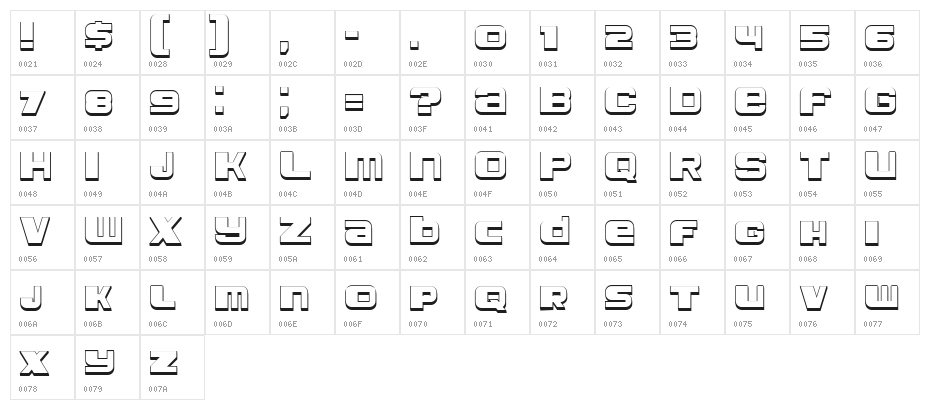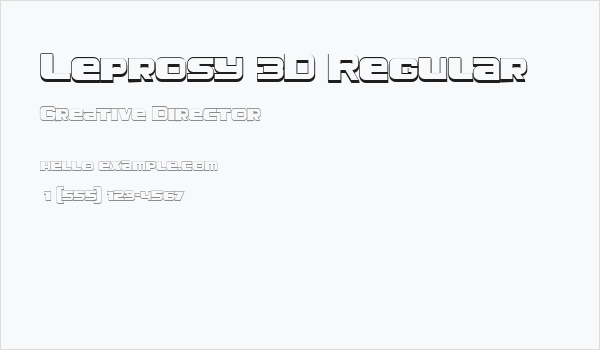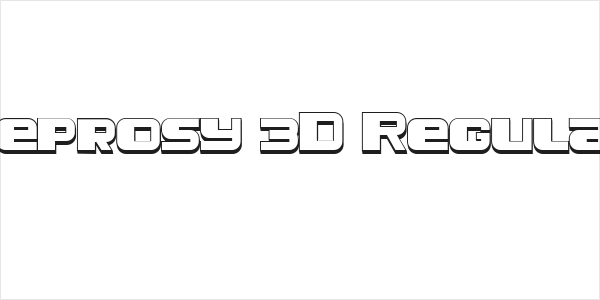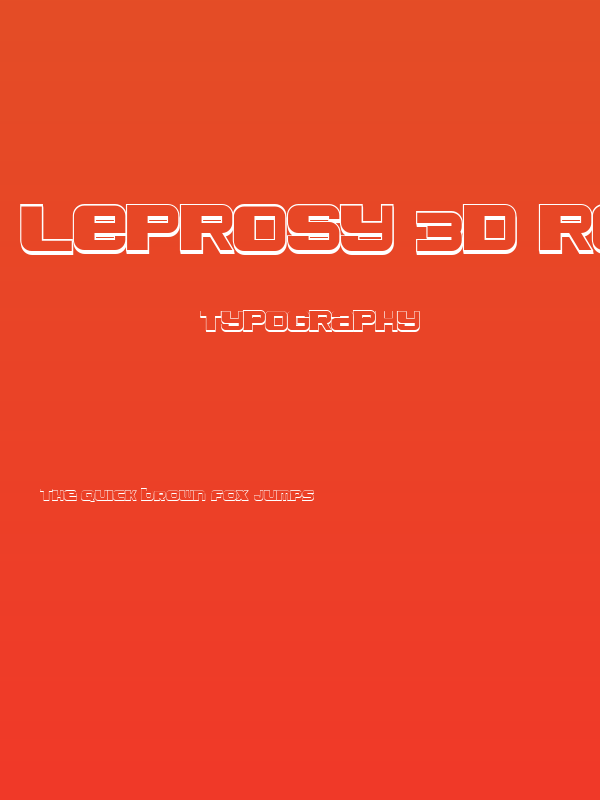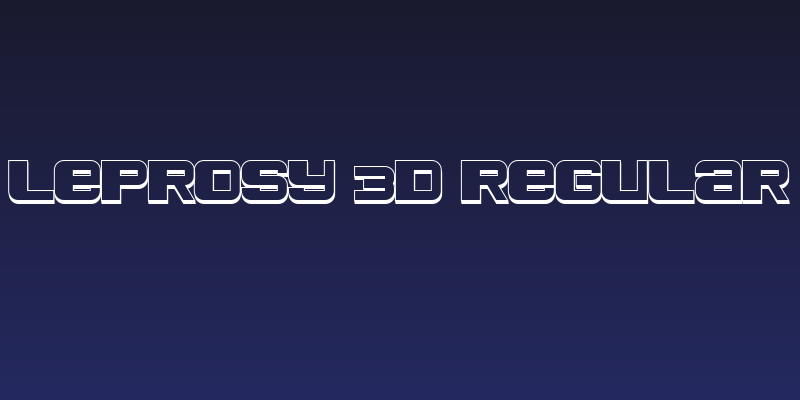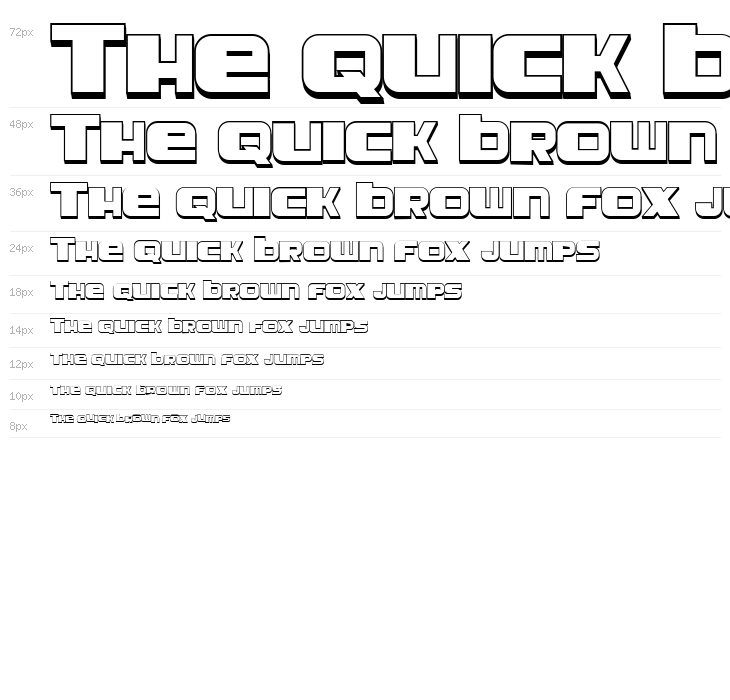
Leprosy 3D Regular Font
Leprosy 3D Regular Description
This font features a bold, three-dimensional appearance with a strong, geometric structure. Each character is outlined with a thick border, giving it a distinct, blocky look that stands out. The letters are uniformly wide, contributing to a cohesive and balanced aesthetic. The uppercase and lowercase letters maintain a consistent style, with rounded edges and a modern, futuristic feel. The numbers and special characters follow the same design principles, ensuring a seamless integration across different text elements. This font's unique style makes it ideal for attention-grabbing headlines and titles.
| Proposed Projects | Ideal for use in video game titles, tech branding, posters, and futuristic-themed designs. |